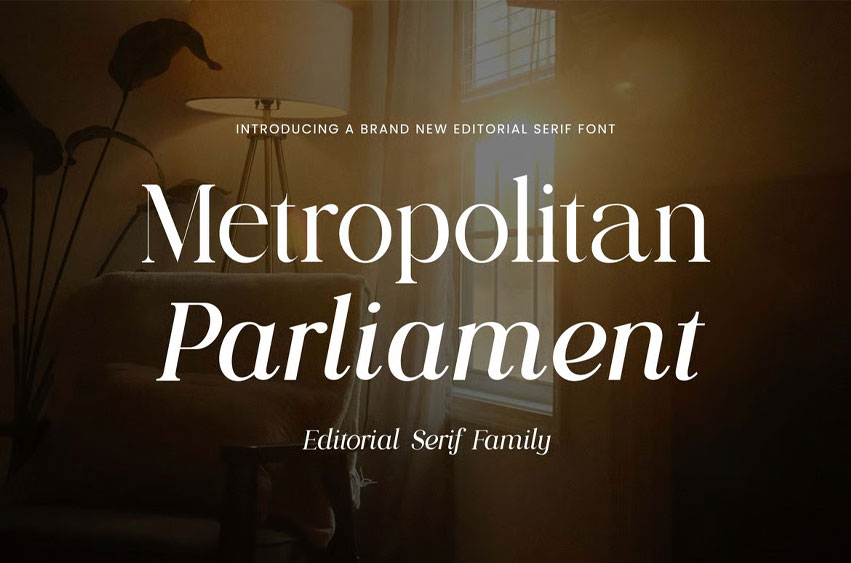
Metropolitan Parliament Font
Metropolitan Parliament Font Editorial Serif Font that feels beautiful classy, elegant, and modern. This font is perfectly suited for a wide variety of projects, such as signature, stationery, logo, wedding, typography quotes, magazine or book covers, website headers, branding, packaging design, and more.
Also, fashion-related branding or editorial design displays both masculine and feminine qualities.